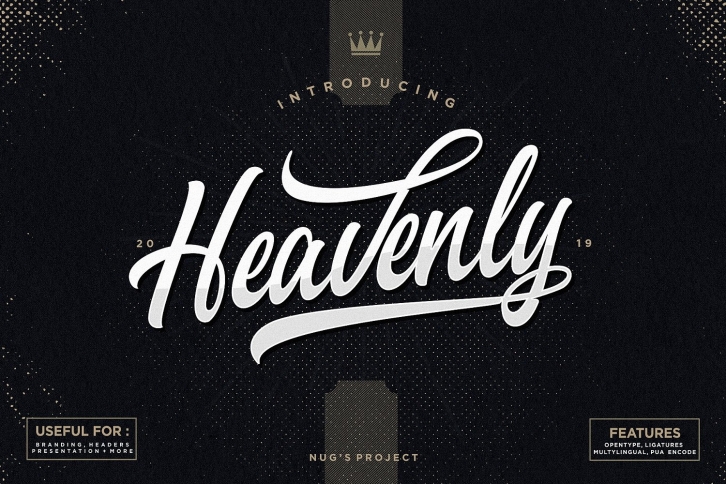
The Heavenly is a striking script font which brings lots of personality to your designs. It includes flowing characters which are ideal for creating an attractive message.
It can be used for posters, branding, advertising, and much more!
- Uppercase Alternate
- Repair of several glyphs
- Swash Update
- German letter ß
- Basic Latin A-Z and a-z
- Symbols
- Opentype Features
- Standart Ligature
- PUA Encode
- Multilanguage Support